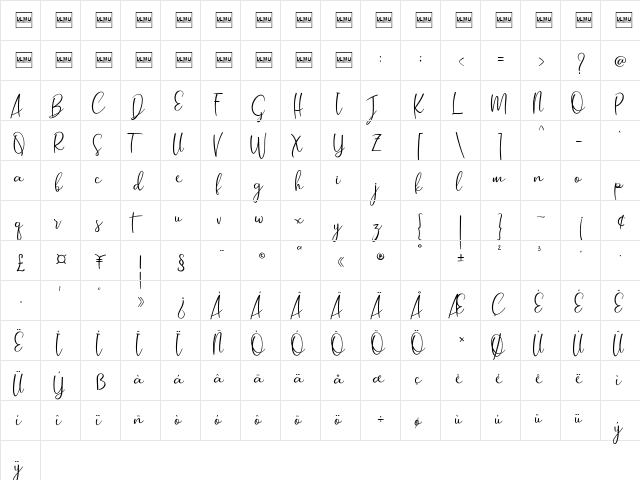
Husterdun Script Regular
| Foundry | Motokiwo |
| Designer | Anton Cahyono |
Design Context for Husterdun Script Typeface
Husterdun Script brings a calligraphic fluidity to the page — its connecting strokes and expressive curves give it an unmistakably human quality.